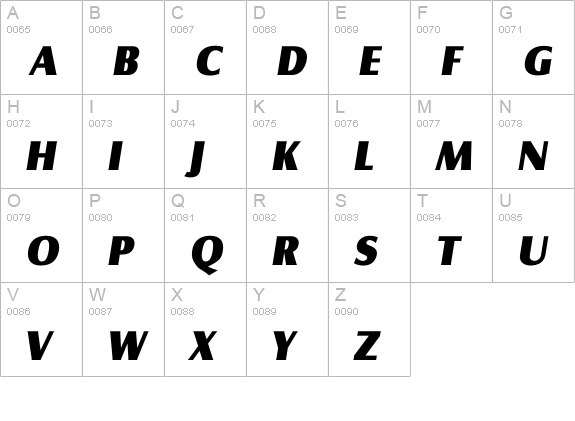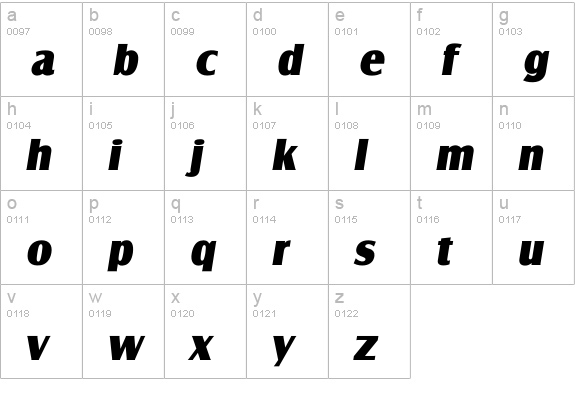
Isalzburg ExtraBold is an extra-heavy, attention-grabbing variant in the Isalzburg typeface family \xE2\x80\x94 well suited to high-impact headlines, posters, and bold branding.
Isalzburg ExtraBold is a captivating and impactful font that demands attention with its bold and strong presence. This font exudes confidence and power, making it perfect for projects that require a touch of boldness. Its thick and prominent letterforms create a striking visual impact, making any text appear dynamic and eye-catching. With its clean and sharp edges, Isalzburg ExtraBold is versatile and can be used in a variety of design applications. From headlines and logos to posters and advertising materials, this font adds a touch of authority and sophistication to any project. Its distinct personality and commanding presence make it a valuable asset for graphic designers, marketing professionals, and anyone looking to make a bold statement. The best part? Isalzburg ExtraBold is free to download at FontsMarket.com. With just a few clicks, you can enhance your designs and have access to a powerful font that will make your text stand out. Whether you're a professional designer or a hobbyist, this font offers a professional and polished look without the hefty price tag. Take advantage of Isalzburg ExtraBold's free availability and elevate your design projects to new heights. Download it today and unlock the potential to create captivating and attention-grabbing designs that leave a lasting impression. FontsMarket.com provides a hassle-free experience, ensuring that you can easily download and install Isalzburg ExtraBold to add a touch of boldness and flair to your creative endeavors.